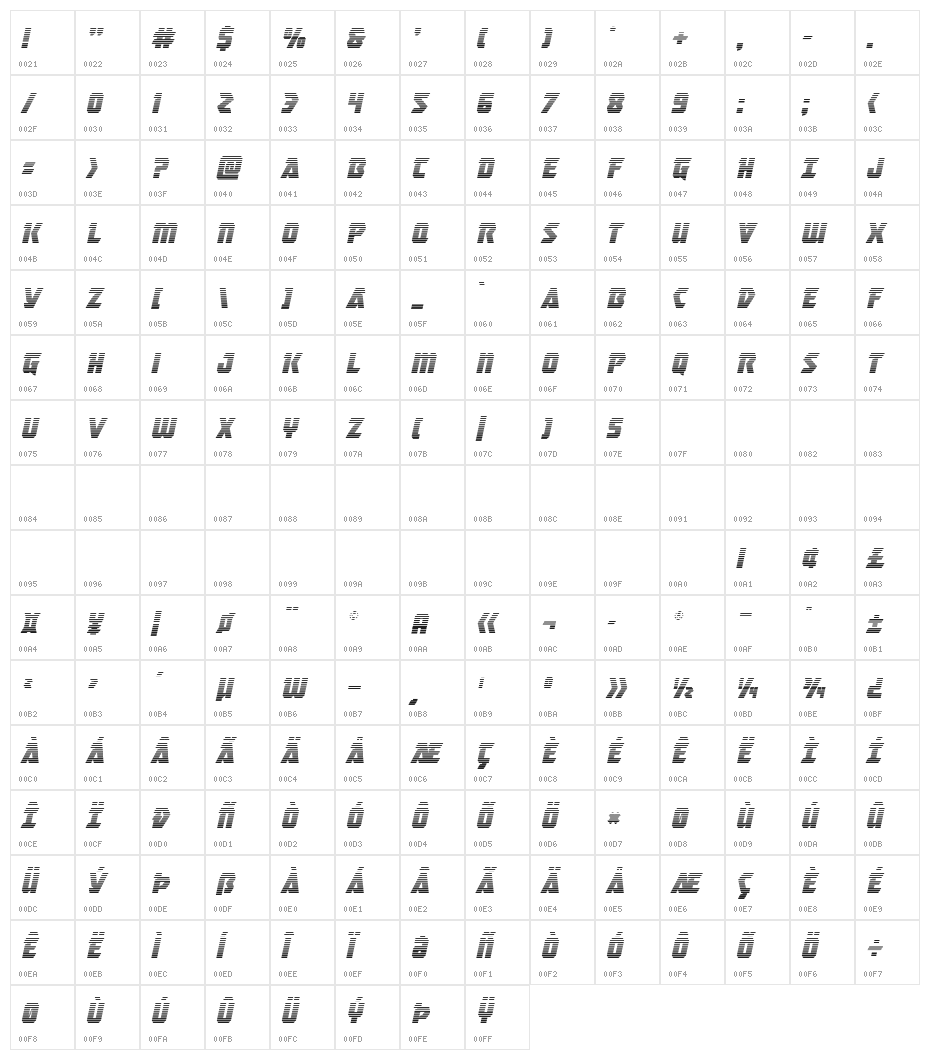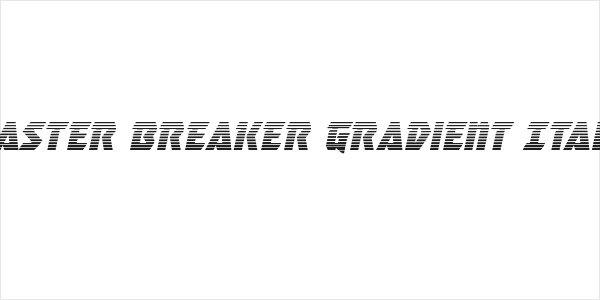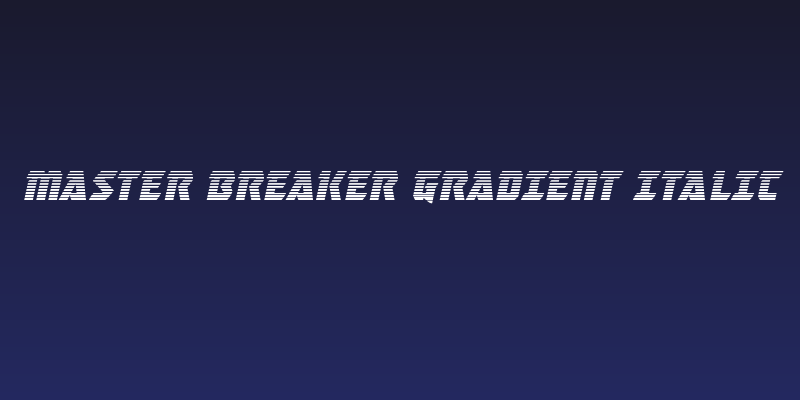
Master Breaker Gradient Italic Font
Master Breaker Gradient Italic Description
This font features a bold, italicized style with a unique gradient effect created by horizontal lines that break up the characters. The design gives a sense of movement and speed, making it visually striking and dynamic. Each letter is constructed with precision, maintaining a consistent slant and spacing that enhances readability despite its decorative nature. The uppercase and lowercase letters, along with numbers and special characters, are all designed with the same distinctive pattern, ensuring uniformity across all text. This font is ideal for projects that require a modern, edgy look with a touch of futuristic flair.
| Overall Style | Modern, Futuristic |
| Proposed Projects | Ideal for sports branding, automotive advertisements, video game titles, and futuristic-themed posters. |